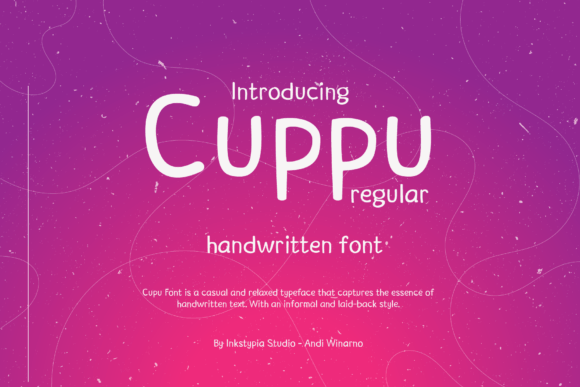
Introducing Cuppu Font: A Serene Escape into the Realm of Casual Elegance
In a world where digital communication often lacks a personal touch, Cuppu Font emerges as a refreshing oasis of handwritten charm. Picture this: a casual stroll through a tranquil garden, where the gentle breeze carries the fragrance of blooming flowers and the sun casts a warm glow upon the cobblestone path. Cuppu Font embodies this serene essence, inviting you to embrace the art of handwritten expression.
With its graceful curves and organic shapes, Cuppu Font exudes a sense of effortless beauty. Its characters dance across the screen like a gentle melody, capturing the essence of handwritten notes and personal touches. Whether you're crafting heartfelt letters, designing whimsical invitations, or creating a cozy and inviting brand identity, Cuppu Font will infuse your designs with a touch of warmth and comfort.
Immerse yourself in the world of Cuppu Font and discover the beauty of casual elegance. Let your words flow freely, guided by the font's inviting shapes. Experience the joy of communicating with a personal touch, knowing that each letter carries the weight of your emotions and intentions.
Unlock the gateway to a world where handwritten elegance meets modern convenience. Cuppu Font is not just a font; it's an experience that transforms your digital interactions into heartfelt expressions. Embrace the beauty of casual elegance and let your words take on a life of their own.